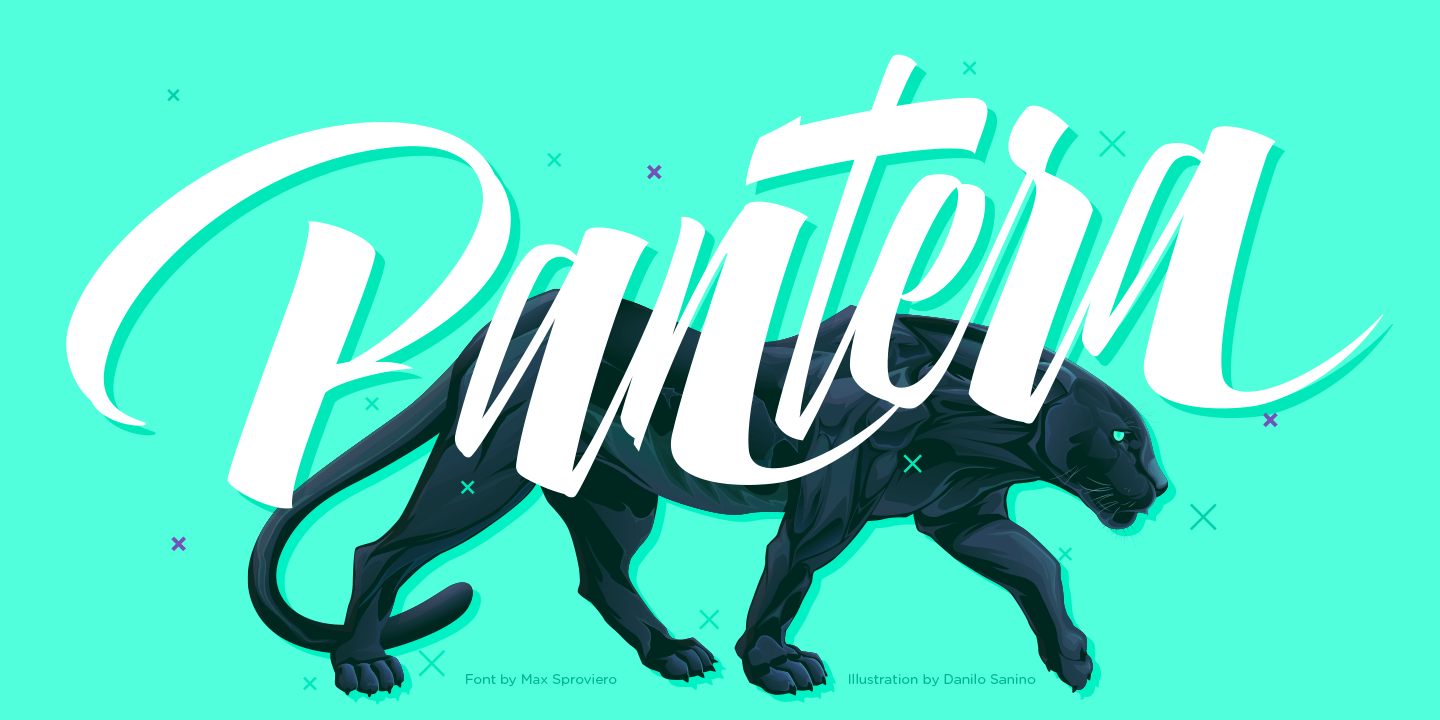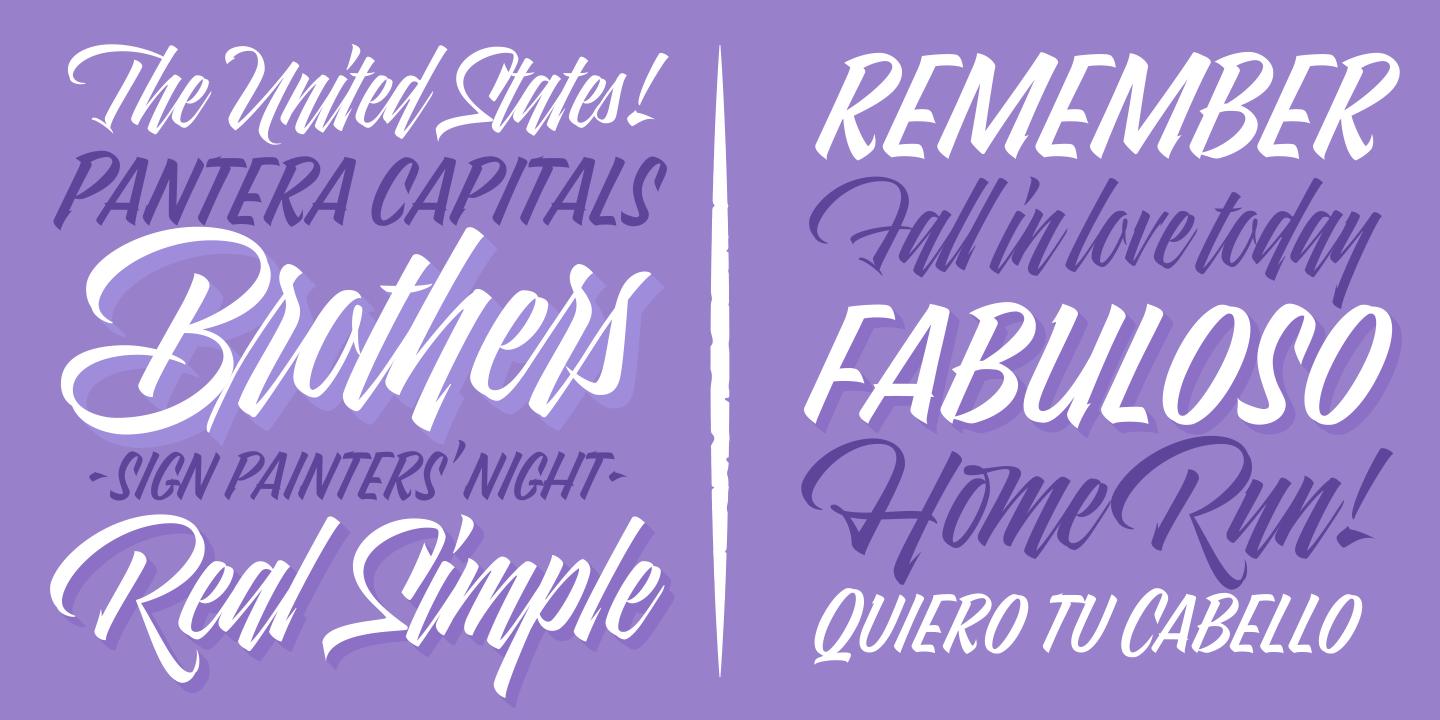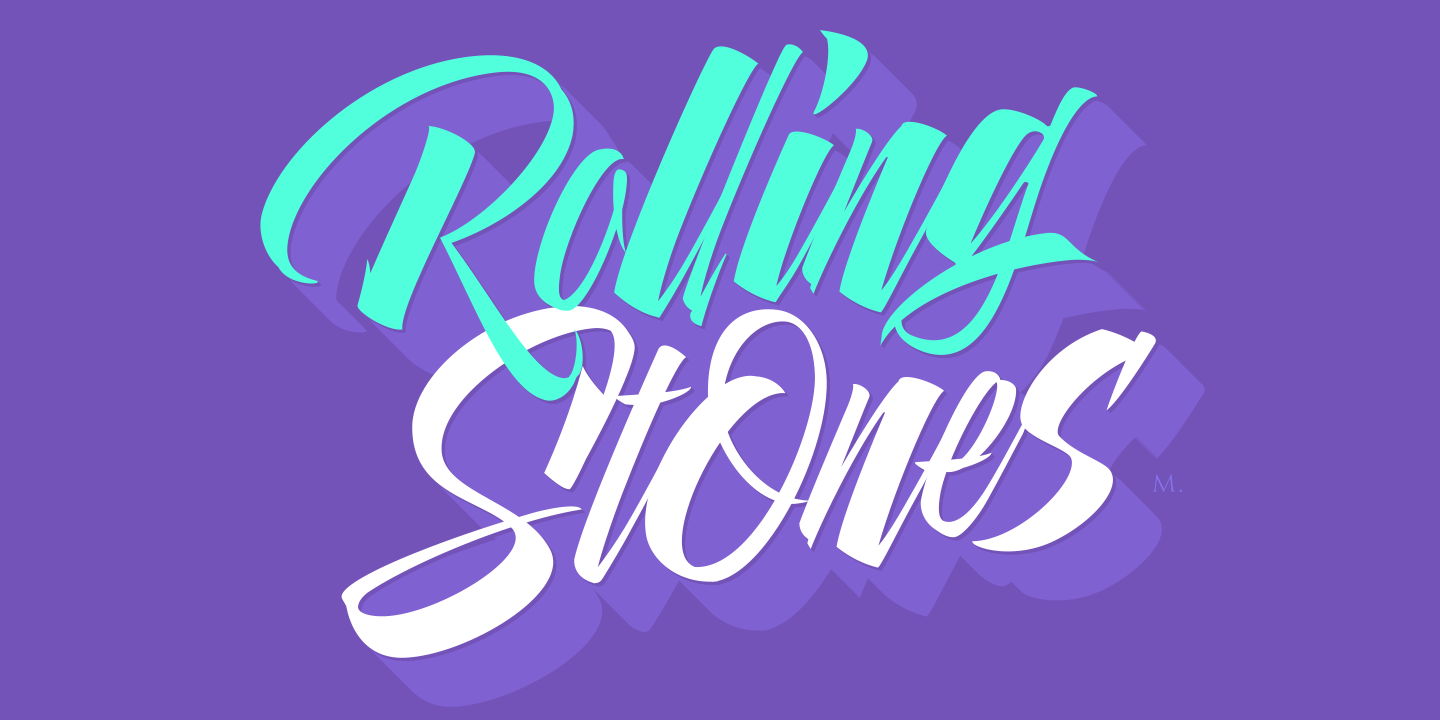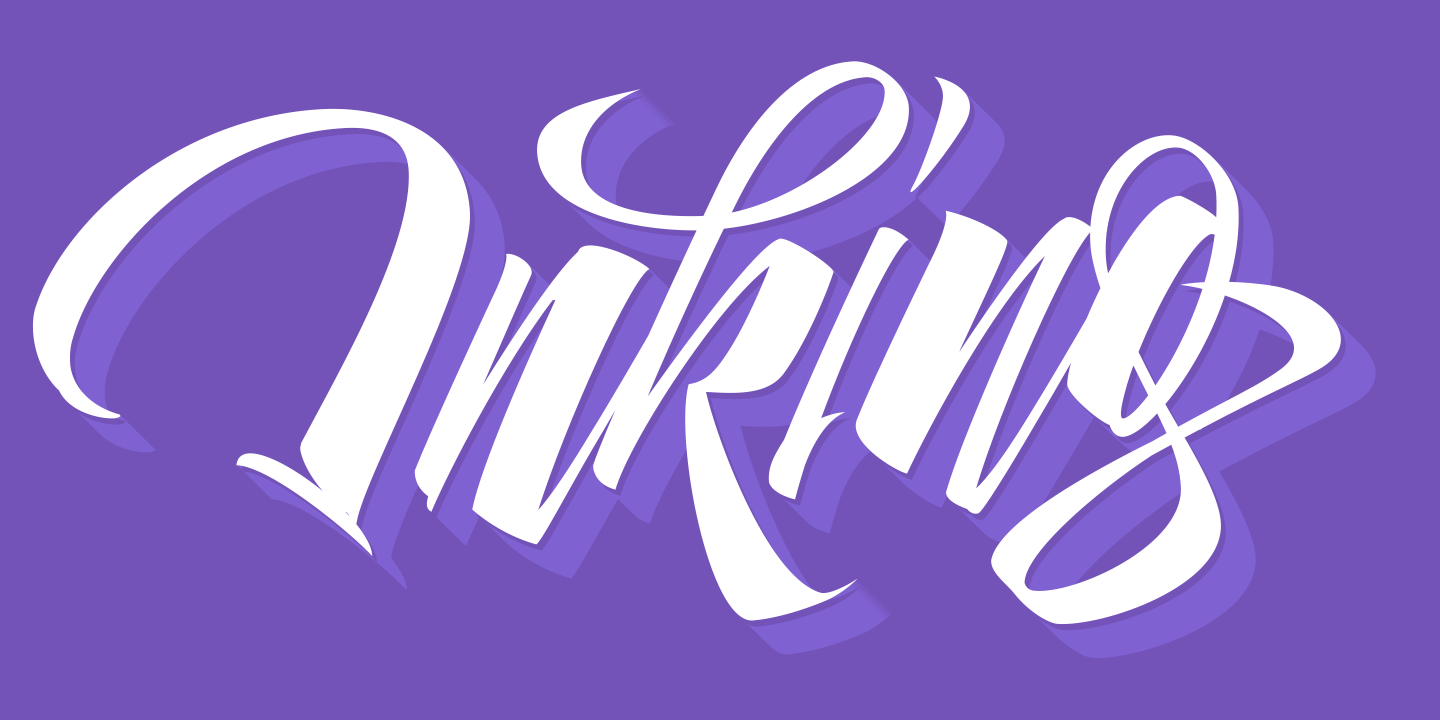
Pantera
About Pantera
ROARRR! THE STYLES -Pantera Pro is the most complete style, and although its default look is mono-rhythmic it gets really playful and crazy like the examples of the posters by just activating the Decorative Ligatures button in the Open-type Panel of…